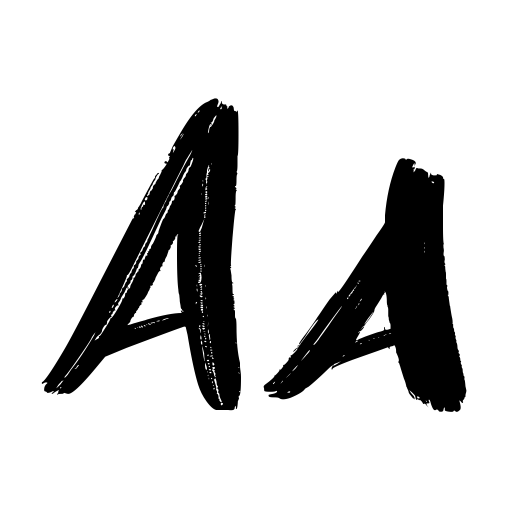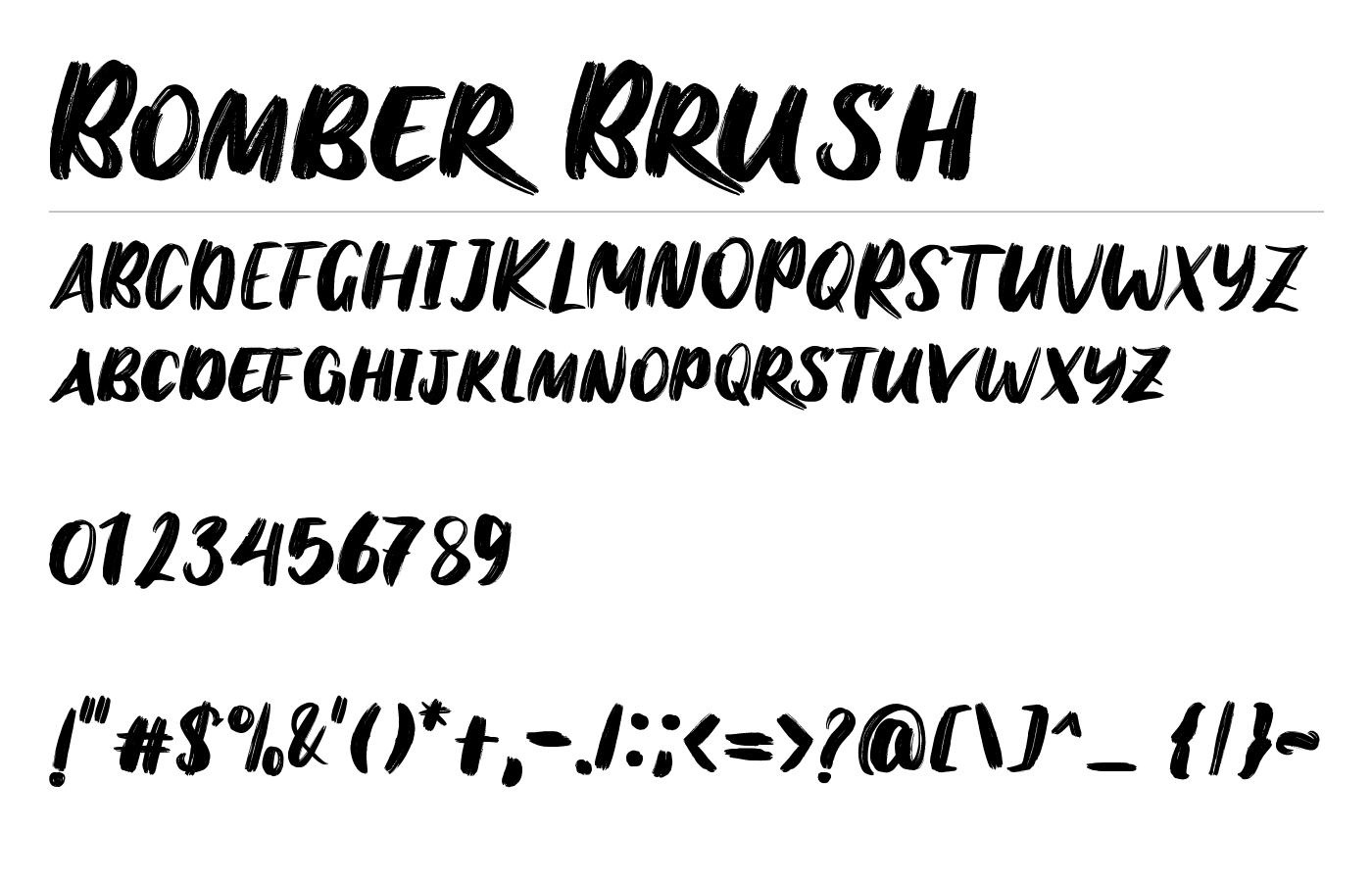
Bomber Brush is a bold, expressive brush script font that combines a casual, hand-painted feel with strong, textured strokes. Its energetic and slightly rough edges give it a dynamic and artistic personality, making it perfect for creative projects, branding, posters, and any design that wants to evoke a lively, handmade vibe. This font works well in headlines or display use where a bold, informal style can stand out and grab attention.
Bomber Brush Font
About Bomber Brush Font
| Designer | dianhaniff |